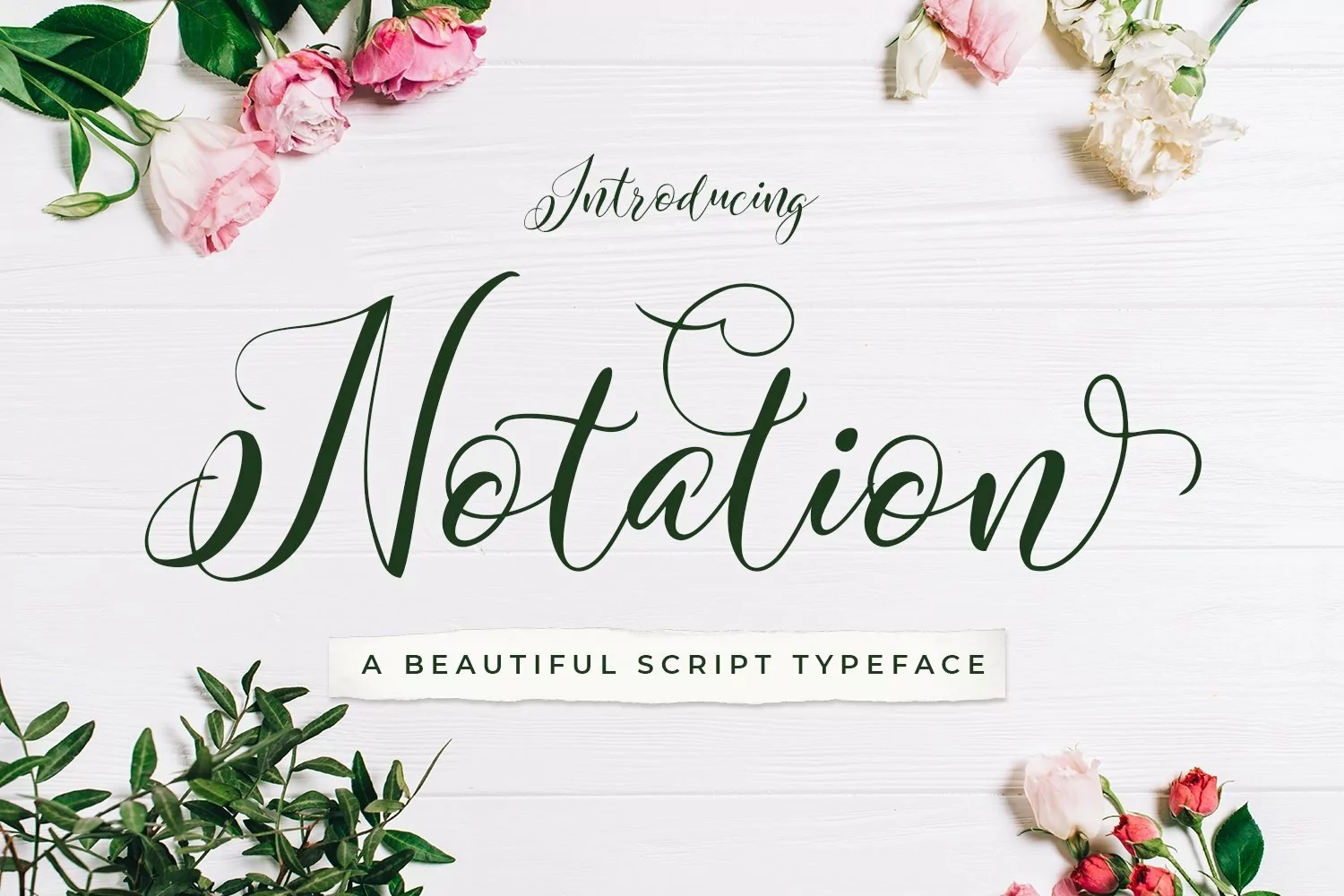
Web Font Notation Vector Flowers
Notation is a lovely script font which is perfect for romantic gestures! Also included are some bonus vector flowers in .PSD .AI and .EPS for format!